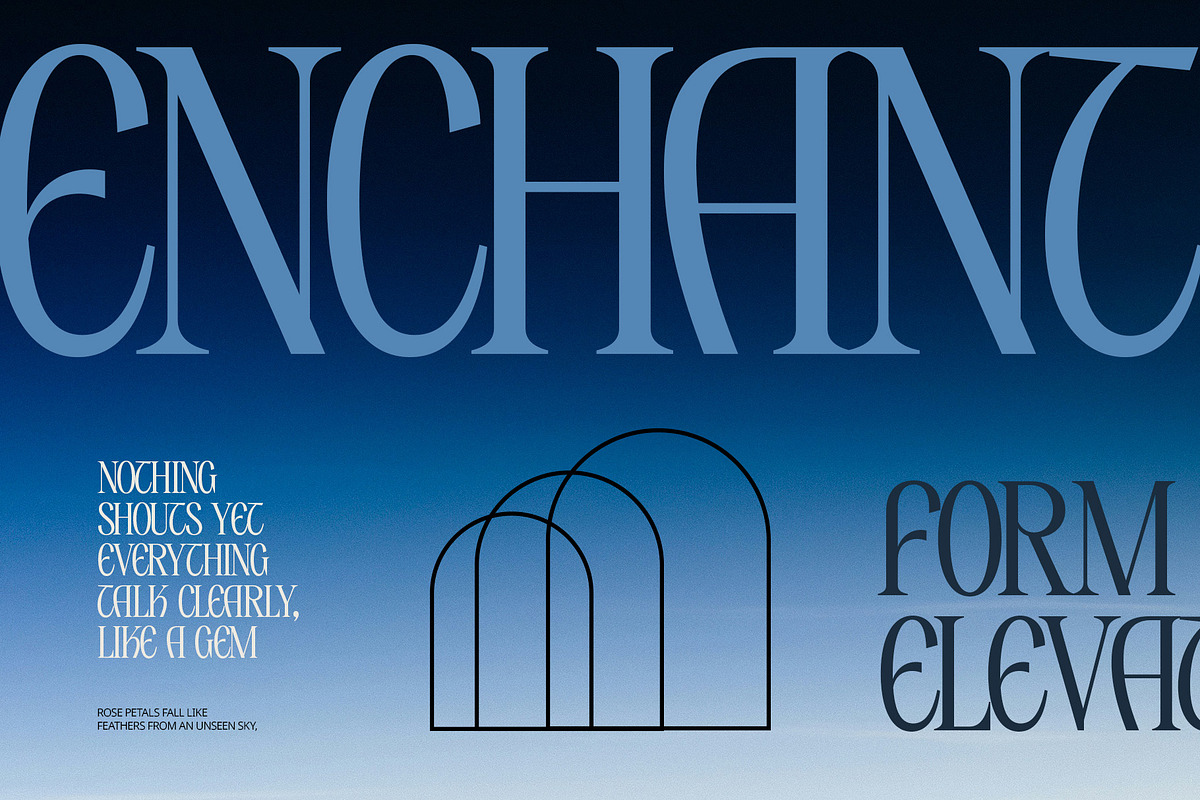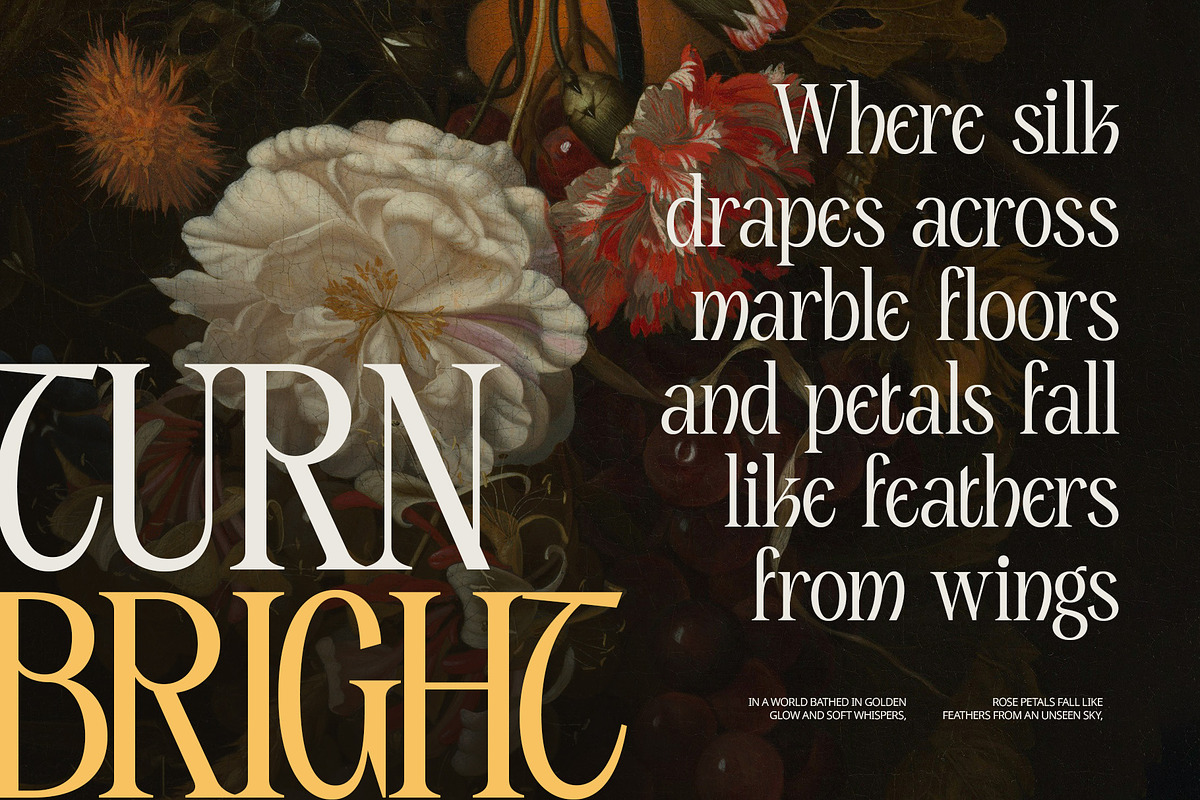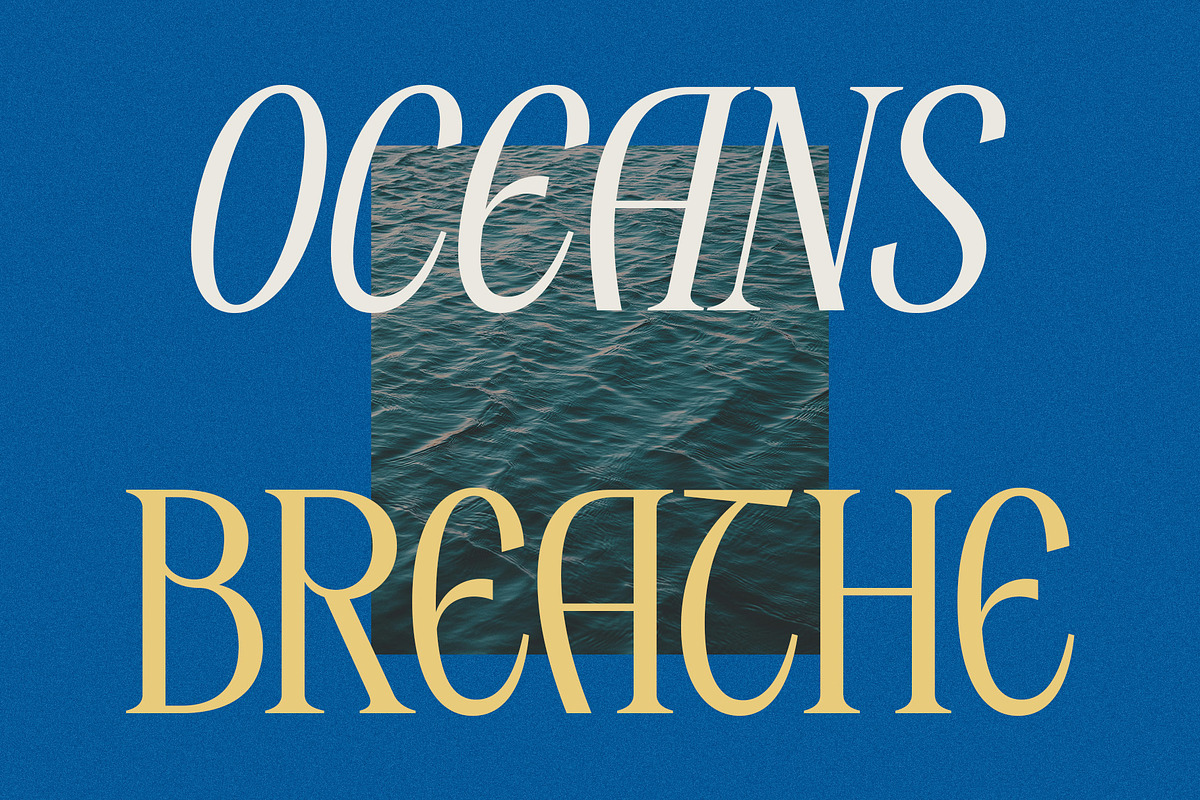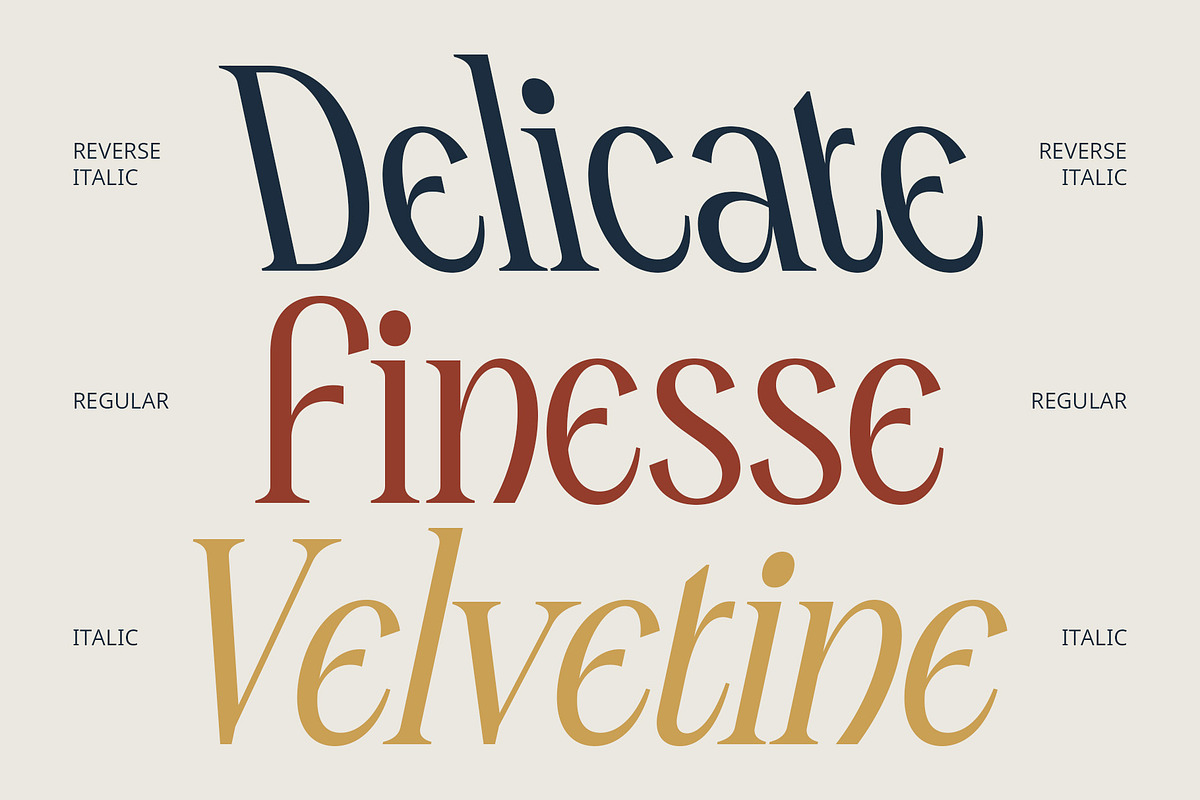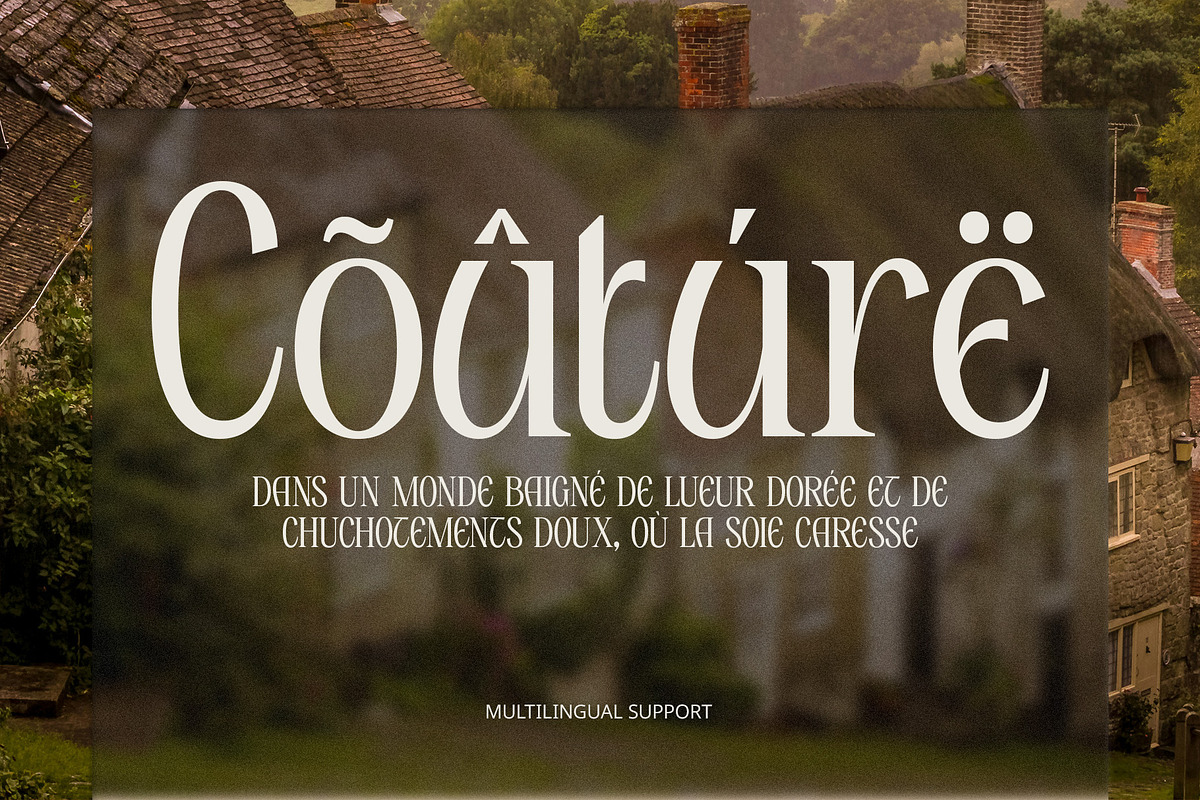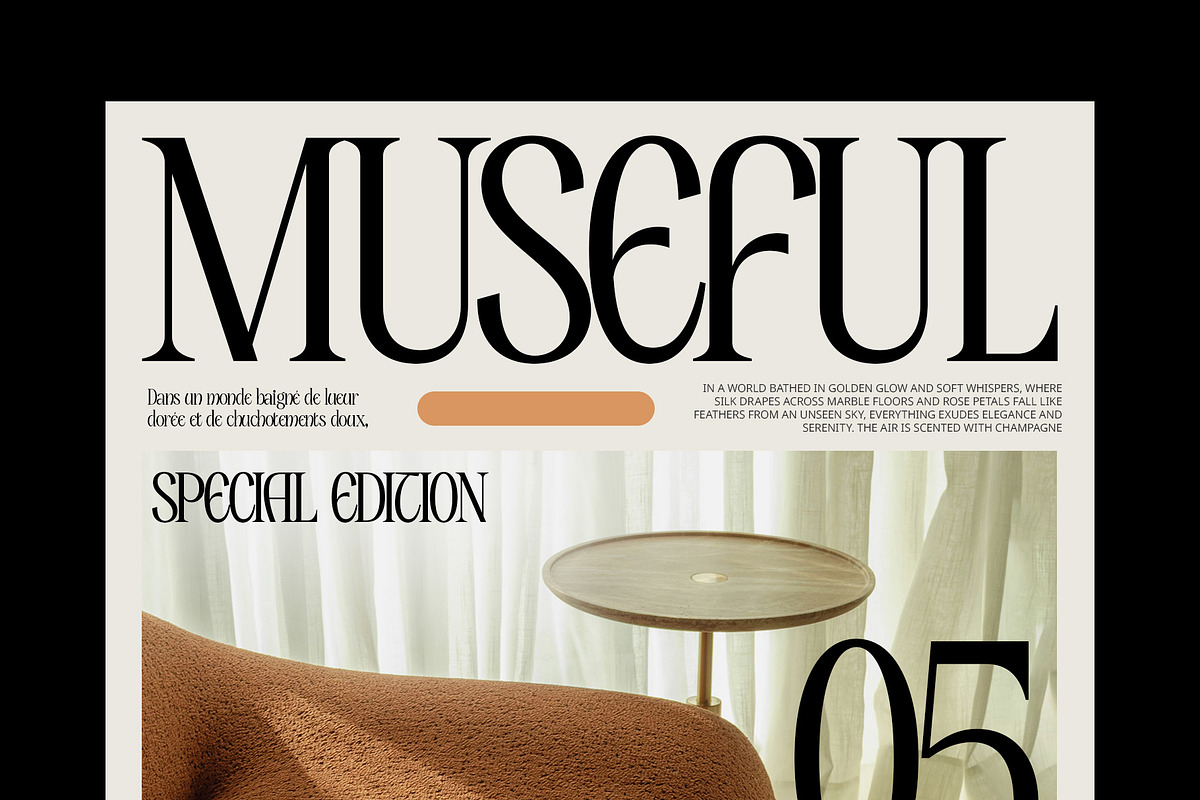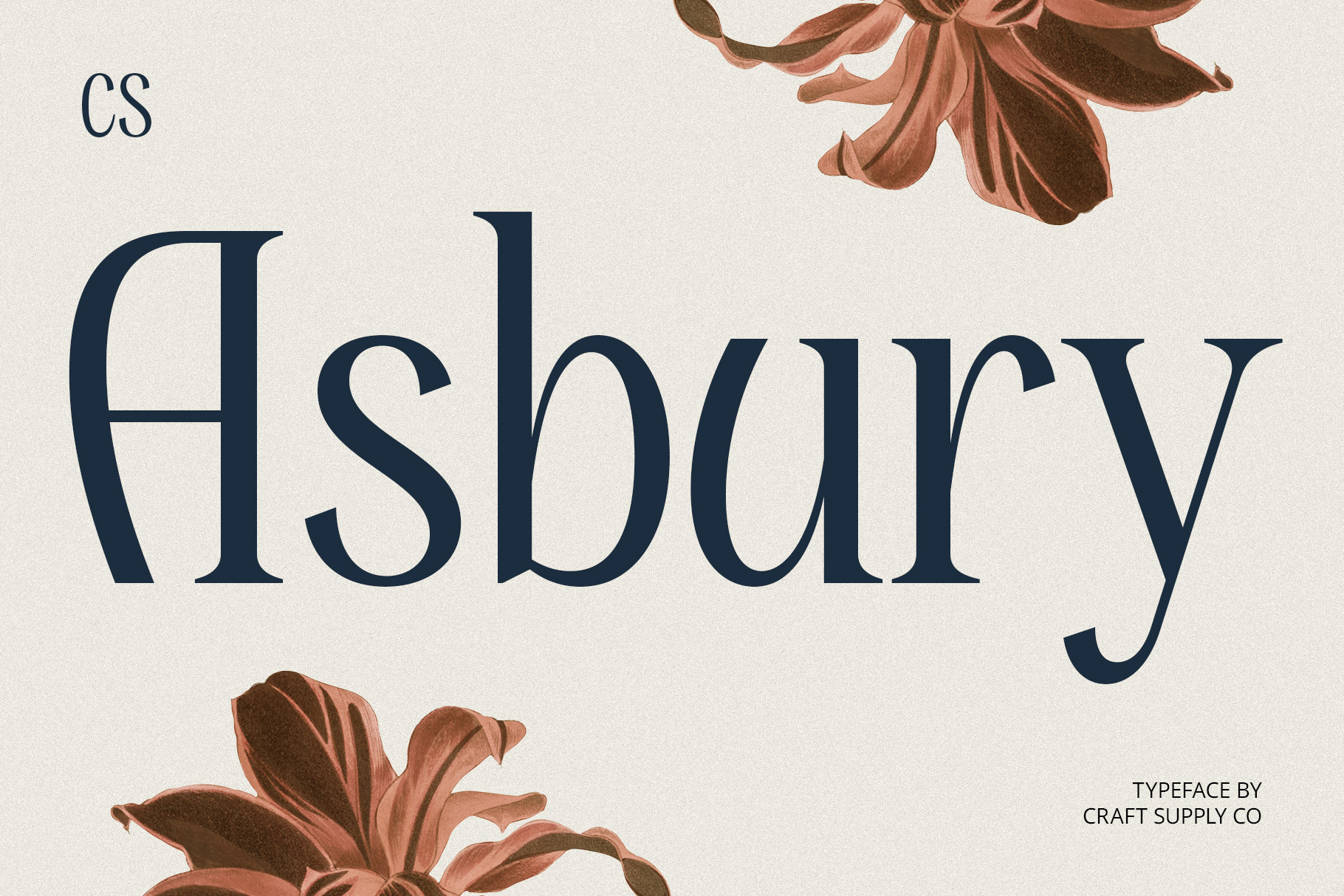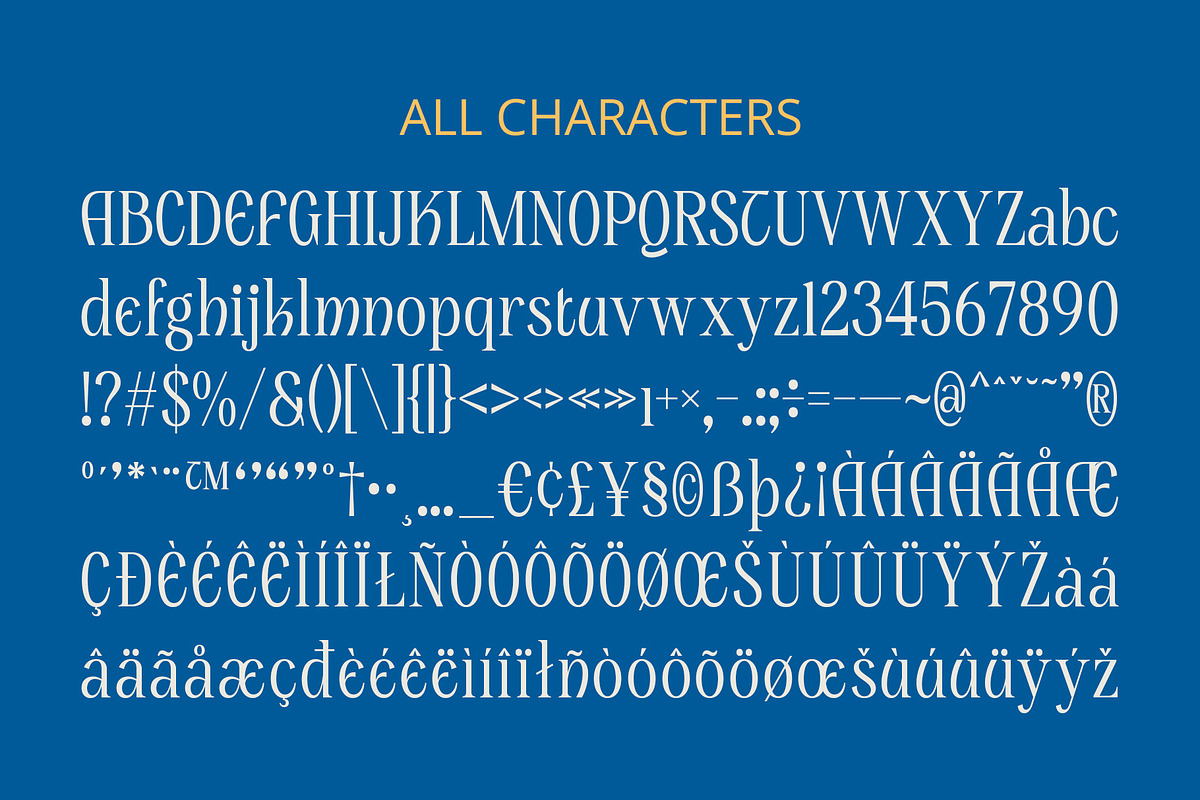
CS Asbury – Classic Font
CS Asbury – A Modern Classic Serif Font with Timeless Elegance
Graceful Precision, Enduring Sophistication CS Asbury is a modern serif font that harmoniously blends clean geometric shapes with classic proportions, resulting in a typeface that feels both refined and timeless. With every letterform carefully constructed for balance and clarity, it delivers a high-end aesthetic that reflects elegance, charm, and professionalism.
Classic Beauty with a Modern Edge The font features sharp, slender serifs and subtly tapered strokes, giving it a graceful structure without sacrificing readability. Its contemporary nuances—like proportional symmetry and thoughtful spacing—enhance its visual harmony, making it ideal for designers who seek sophistication with a fresh, modern feel.
Perfect for Elegant and Professional Design CS Asbury thrives in contexts that require credibility and visual finesse—from editorial layouts, magazine spreads, and book titles, to luxury branding, fashion identities, and upscale packaging. Its timeless appearance and polished personality make it a go-to choice for visual storytelling that aims to inspire trust and admiration.
Versatile and Stylish by Design Whether used in headlines, logos, or refined typographic compositions, CS Asbury adapts beautifully across both print and digital media. Its classic charm and modern clarity allow it to elevate a brand’s message with ease, ensuring lasting visual impact.
- CS Asbury Regular
- CS Asbury Italic
- CS Asbury Reverse Italic